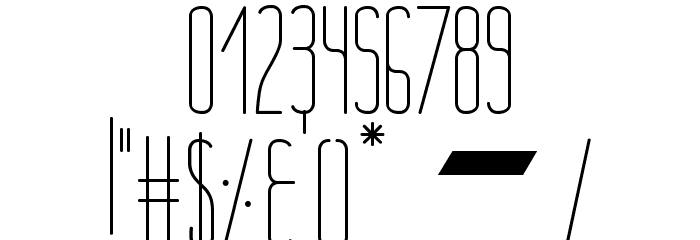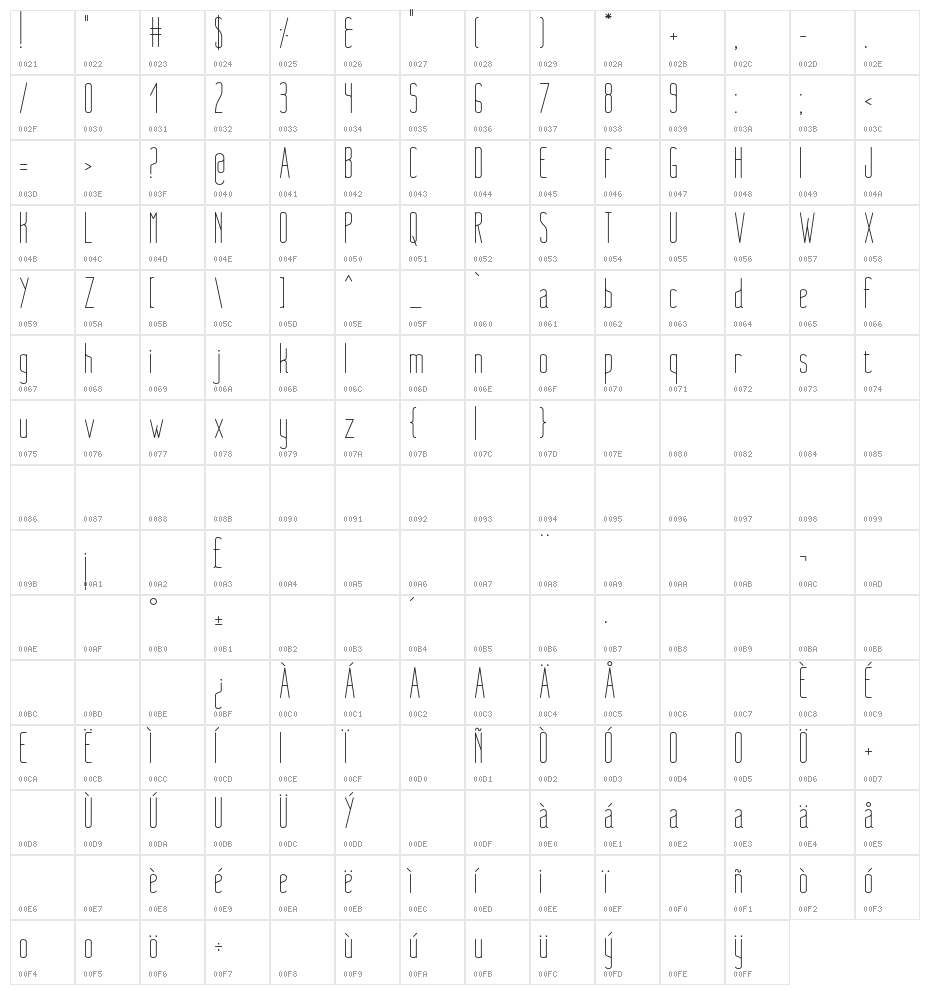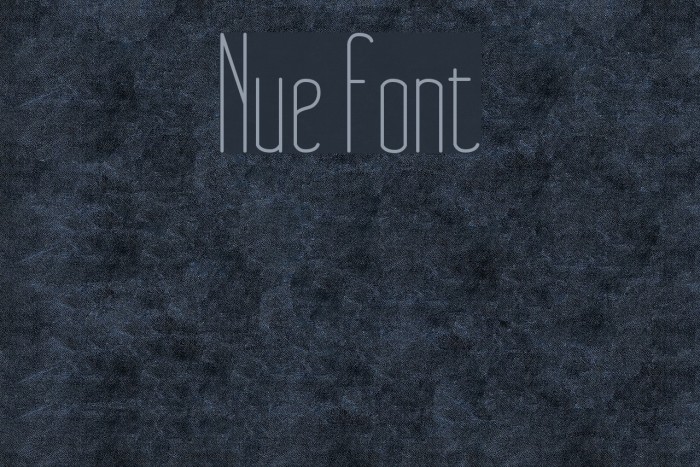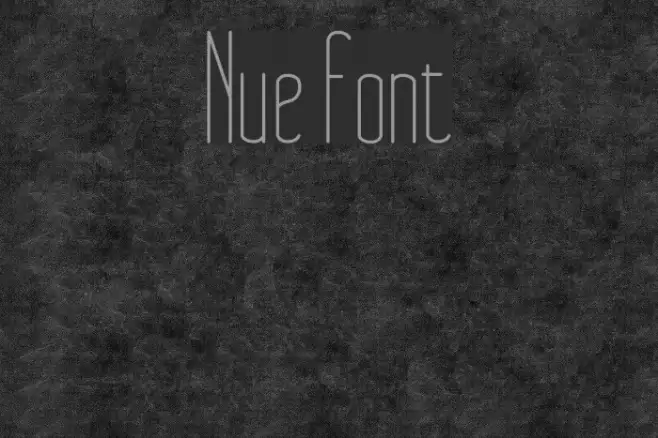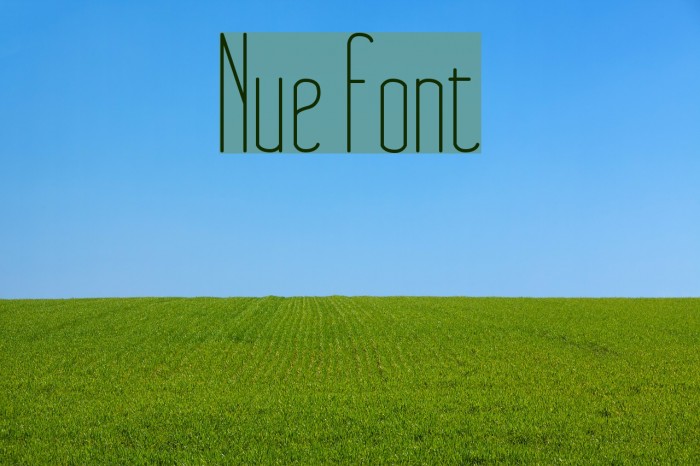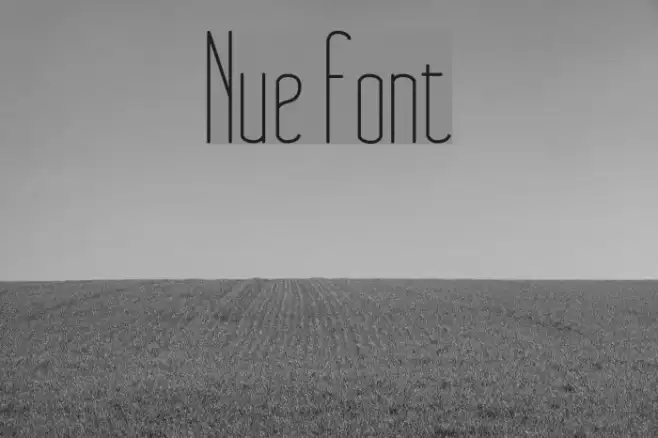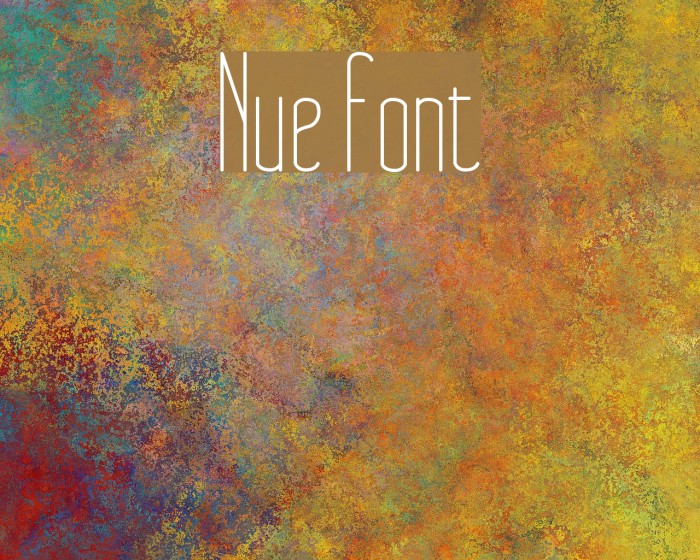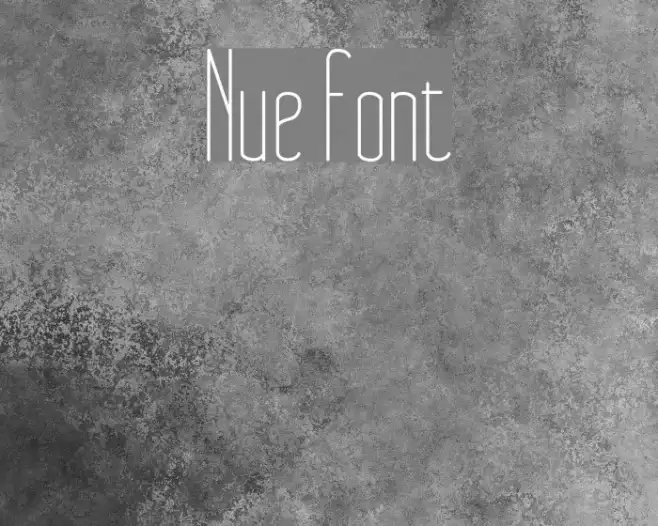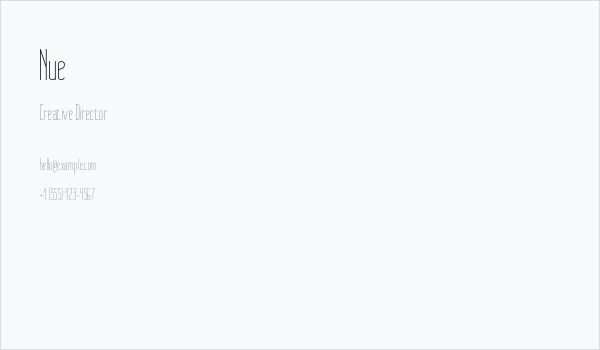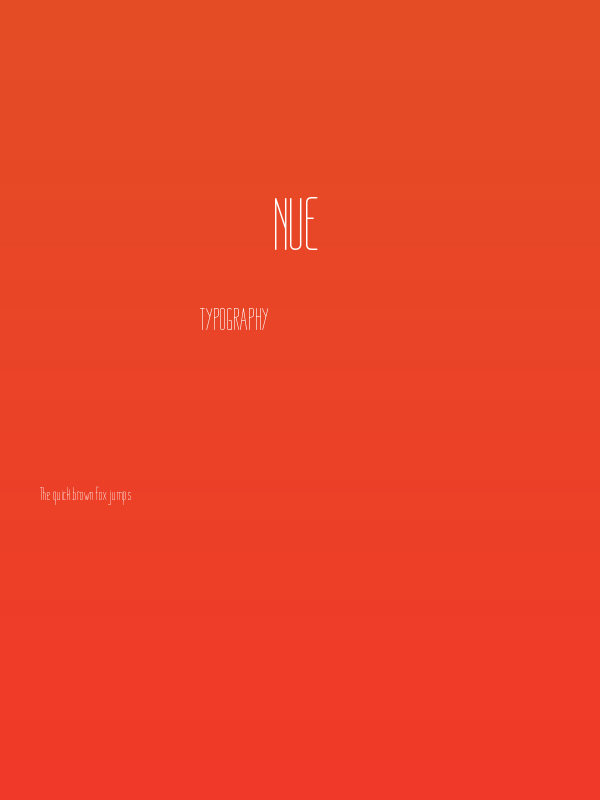
Nue Font
Nue Description
This font features a sleek, elongated design with a modern and minimalistic aesthetic. The characters are tall and narrow, giving a sophisticated and elegant appearance. The uppercase letters have a uniform height, while the lowercase letters maintain a consistent style with slightly rounded edges. The numerals are distinct and align well with the overall design, ensuring clarity and readability. Special characters are included, maintaining the same thin and elongated style, which adds to the font's versatility. The overall look is clean and contemporary, making it suitable for various design applications.
| Proposed Projects | Ideal for fashion magazines, luxury branding, modern websites, and minimalist posters. |